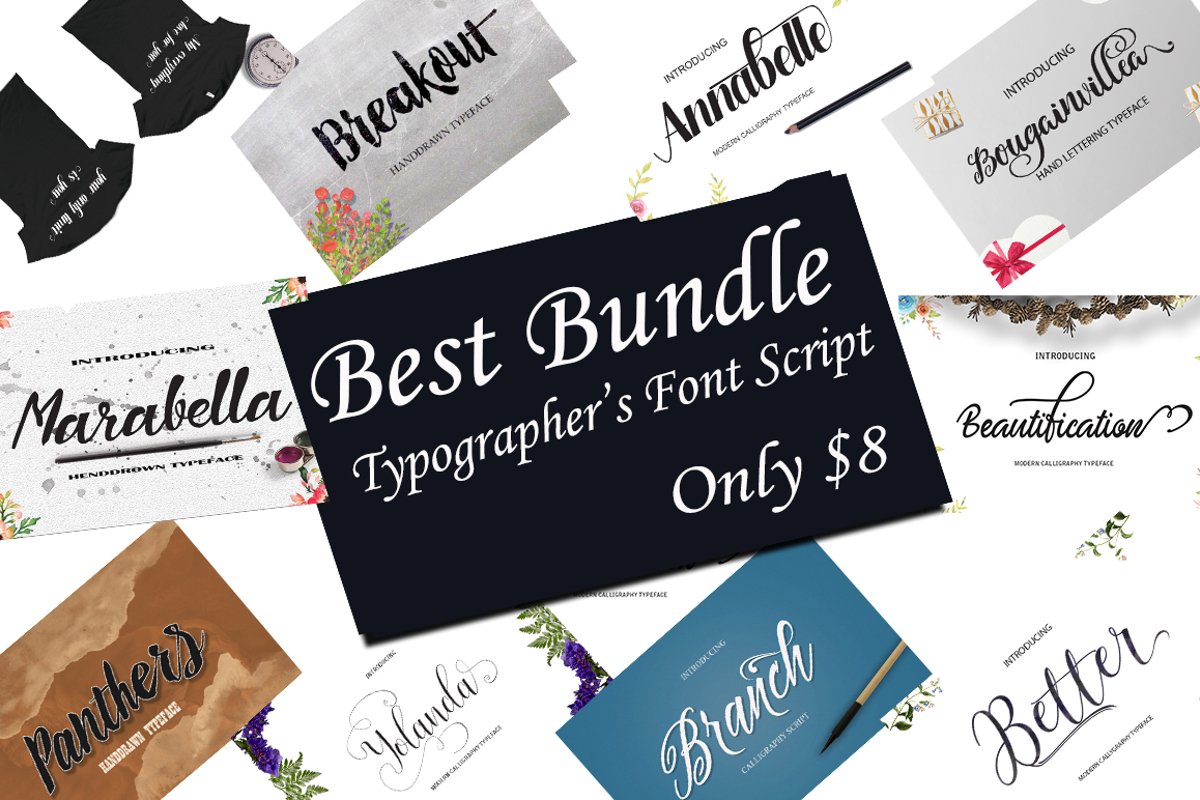
BEST FONTS BUNDLES
This package contains 15 Font Scripts. Includes some best-selling fonts.Knowledge Script, Melanie Script, Badger Script, Charlie Script, Gabrielle Script, Saphira Dll Script, with hundreds of glyphs, including alternates, ligatures, swashes, contextual alternatives and international language support. It can be accessed by using OpenType smart programs like Adobe Illustrator, Adobe InDesign, CorelDraw X6-X7, Microsoft Word.
All fonts is perfect for branding, headings, signatures, logos, blog, wedding invitations, t-shirts, letterhead, merchandise, signage, lable, news, posters, badges etc